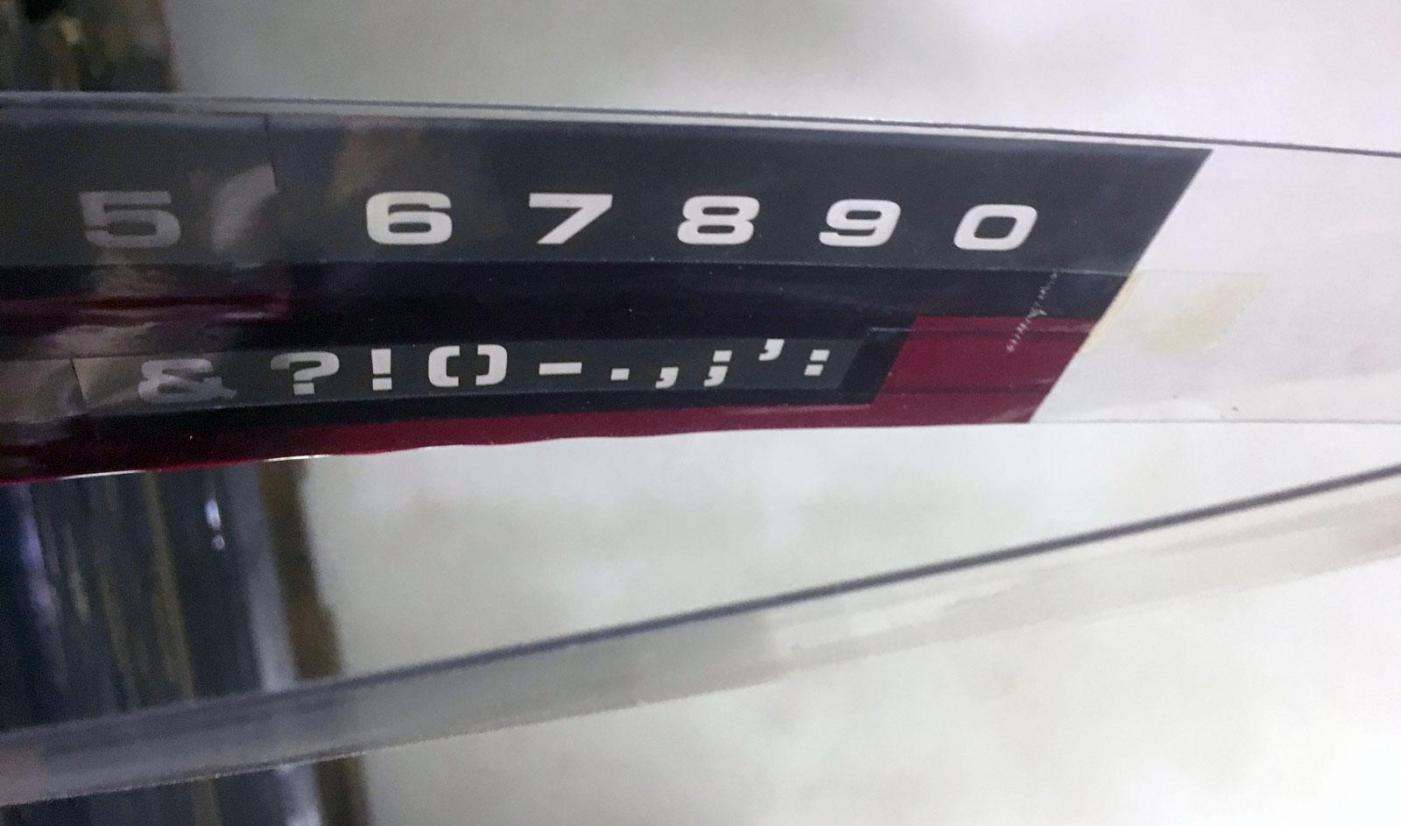
Self-made phototypesetting fonts?
So we recently took over a Staromat phototypesetting machine with well over 100 fonts. Interestingly, more than half of the fonts appear to be self-made. Several negatives per font put between two plastic strips, retouched with markers and all taped together.
Was this done to save the money for the actual fonts and if so, was that a common thing do do back then? Or are there other possible reasons? Anything seen this before?
The retouching is likely just opaque; that was a common occurrence on photo fonts, even text fonts from Alphatype had it. Two-inch fonts from franchises such as Alphabet Innovations had it and very likely even later ones from Visual Graphics also.
In the early days Alphabet Innovations fonts were made by hand, in sections, so were patched together with red tape (Paklon) and retouched with opaque because they didn't have proper equipment to make a film strip longer than 24 inches. In the early days of Visual Graphics they either didn't have proper equipment or wanted to build a library very quickly, so copied or sold Filmotype fonts with all the spacing guides opaqued out. Lots of opaque on those!
Your picture on the bottom does appear to be home-made, and may have been done for one of the following reasons:
1. Staromat didn't have the font available to sell, or
2. The user made it to match more exactly output from a text machine, or
3. Their time was worth nothing so they made it to save money.